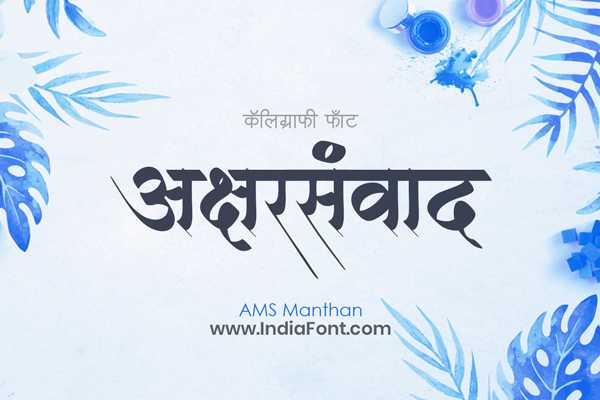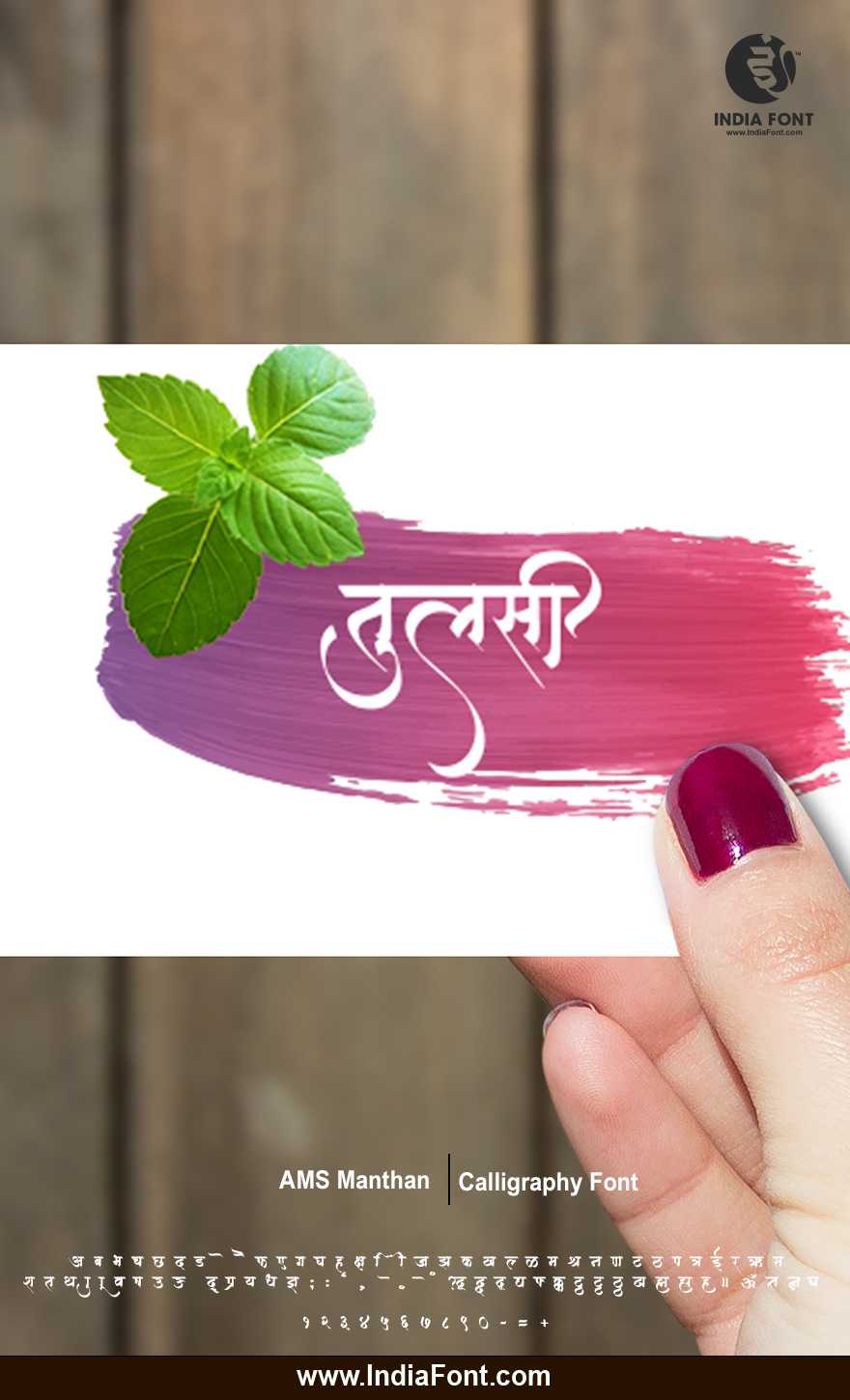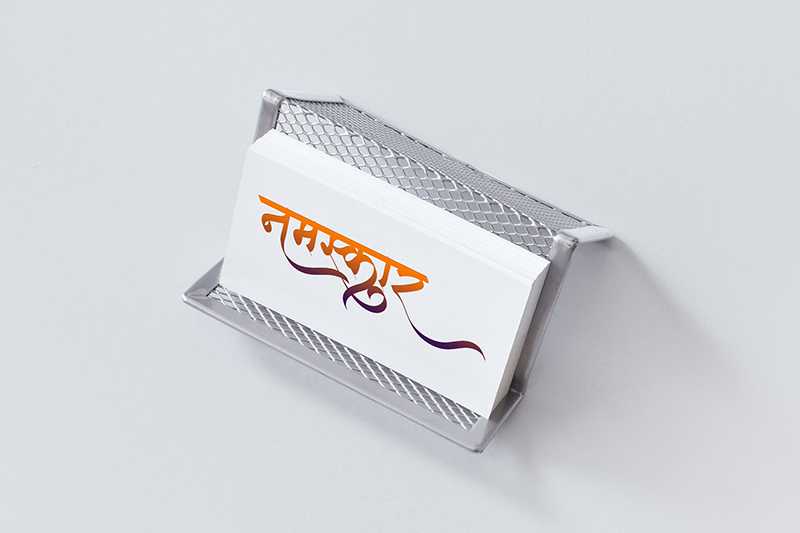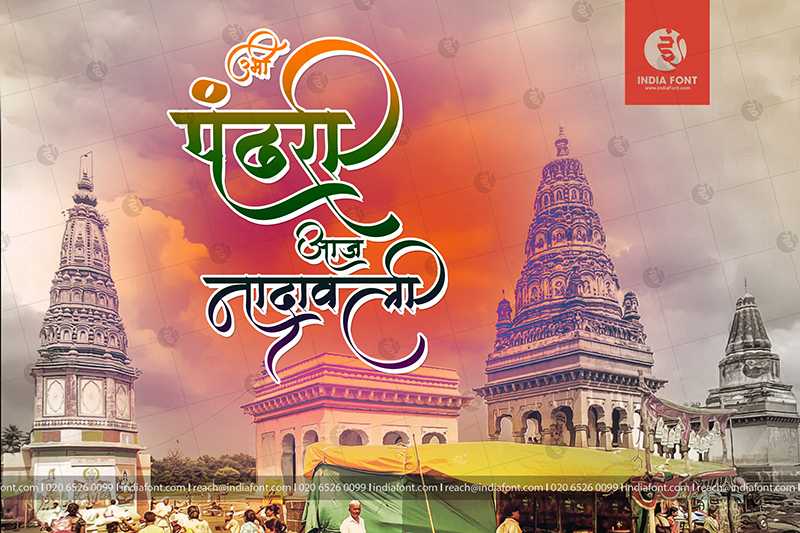
AMS Manthan
Unleash your artistic potential with AMS Manthan, a captivating calligraphy font that showcases the beauty of handcrafted lettering. This font is perfect for designers searching for a stylish Hindi font, a calligraphy font that stands out, or a font that offers a unique font style download.
AMS Manthan Design Inspiration
About AMS Manthan Font
Unleash your artistic potential with AMS Manthan, a captivating calligraphy font that showcases the beauty of handcrafted lettering. This font is perfect for designers searching for a stylish Hindi font, a calligraphy font that stands out, or a font that offers a unique font style download. This calligraphy font combines elegance with functionality, making it perfect for various design applications.
AMS Manthan is a professionally crafted calligraphy typeface that brings clarity and style to your projects. Designed with attention to detail, it supports hindi and marathi characters flawlessly.
Whether you're working on cultural-religious-designs, books-publications, magazines-newspapers, or other creative projects, AMS Manthan delivers consistent performance across both digital and print media. This carefully designed typeface ensures readability and visual appeal in all your design work.
About AMS Manthan Typography Style
AMS Manthan is a professionally crafted calligraphy font that exemplifies modern Hindi typography design. This free font is perfect for designers seeking versatile design applications.
Available in 1 weight and supporting hindi, marathi scripts, AMS Manthan offers exceptional versatility for both digital and print media. Whether you're working on cultural-religious-designs, books-publications, magazines-newspapers, this carefully designed typeface ensures consistent quality and professional results across all your typography projects.